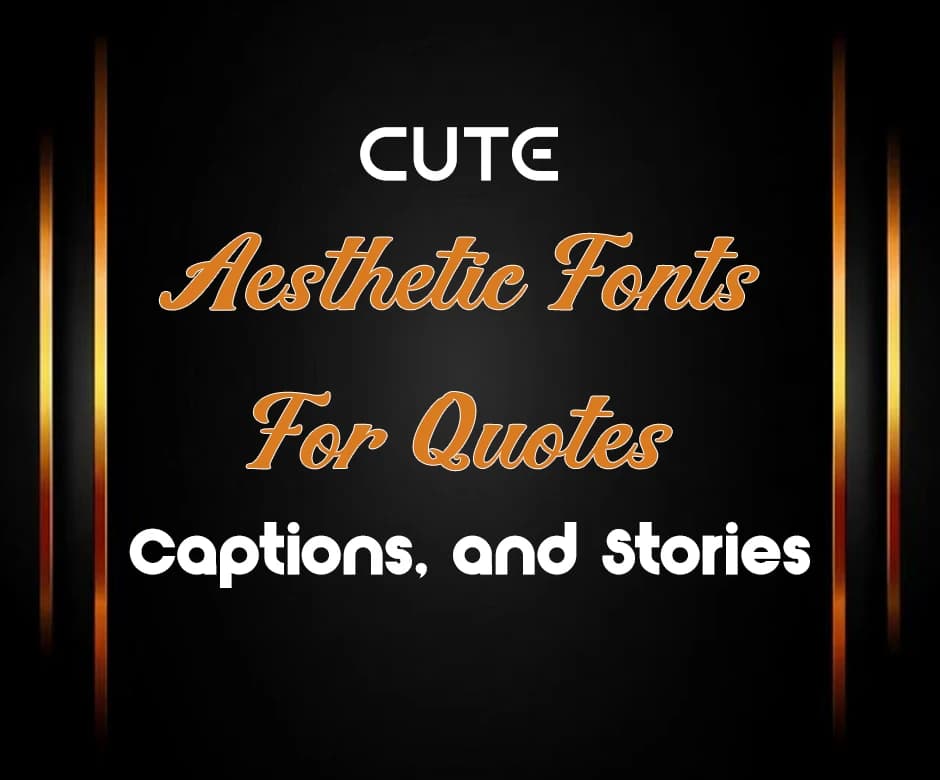
Choosing the right font can make a big difference in how your content looks and feels. Whether it’s a quote, a social media caption, or a story, cute and aesthetic fonts help your text stand out and catch attention.
They can make your posts more engaging, readable, and visually appealing without much effort. The good news is that there are plenty of stylish fonts available for free.
In this article, we’ve put together a free list of the best cute and aesthetic fonts you can use for quotes, captions, and stories.
Cute and aesthetic fonts are effective because they make text more appealing and easier to notice. They grab attention quickly, which is essential for social media posts, stories, and captions that people scroll through fast.
These fonts also help convey mood or personality. For example, playful fonts feel fun, handwritten fonts feel personal, and minimalist fonts feel clean and elegant.
Using the right style can make your message more memorable, help your content stand out, and even increase engagement from your audience.
Choosing the right font can make your quotes, captions, and stories more engaging.
Here’s a curated list of cute and aesthetic fonts grouped by style:
These fonts mimic natural handwriting or flowing script, giving your text a personal and friendly feel. They are perfect for expressing warmth, creativity, or a casual tone. Handwritten fonts work well in short quotes, captions, or Instagram stories where a human touch is desired.
Minimal and elegant fonts focus on clarity and simplicity while maintaining a sophisticated look.
They are excellent for quotes or captions where readability and style are equally important. These fonts suit aesthetic feeds, blogs, or professional posts.
Fun and playful fonts are bold, quirky, and attention-grabbing. They bring energy and personality to your captions or stories, making them more memorable and engaging. These fonts are great for lighthearted content or casual posts that aim to entertain.
Decorative fonts are distinctive and eye-catching, perfect for short quotes or headings that need to stand out.
They are ideal when you want your text to make a visual statement or add a creative flair. These fonts should be used sparingly to avoid overwhelming the design.
Using official fonts in apps and platforms is great for maintaining consistency and readability, but adding a little fun with funky fonts, emojis, and symbols can make your captions, quotes, and stories stand out even more.
Cute and aesthetic fonts can enhance your content when used thoughtfully and with purpose. The key is to balance creativity with readability, so your message stays clear while still looking visually appealing.
Here are some useful tips for using cute and aesthetic fonts the right way:
· Stick to one or two fonts to keep your content consistent and easy to read.
· Match the font style with the mood of your message (playful, minimal, elegant, or fun).
· Avoid using decorative fonts for long text; they work best for short quotes or titles.
· Pair cute fonts with simple backgrounds to improve readability.
· Test how your text looks on different screen sizes before posting.
Cute and aesthetic fonts are a simple yet effective way to improve how your quotes, captions, and stories look. The right font can help your content stand out, reflect your personality, and keep your audience engaged.
With so many free fonts and easy-to-use tools available, experimenting with different styles has never been easier. Try mixing official fonts with stylized text, follow best practices for readability, and have fun creating content that feels both unique and visually appealing.
Start by thinking about the mood or message you want to convey. Choose a font that matches that tone while keeping the text easy to read.
Most standard fonts display correctly across modern devices and platforms. Stylized text may look slightly different depending on the device, so testing before posting is recommended.
Cute or decorative fonts are best for short text like captions or quotes. For longer text, simple and readable fonts work better.
Yes, mixing fonts can look great when done carefully. Try combining one decorative font with one simple font to keep the design balanced.
Yes, they can be used for business content when chosen carefully. Minimal and elegant fonts work best for maintaining a professional and polished look.